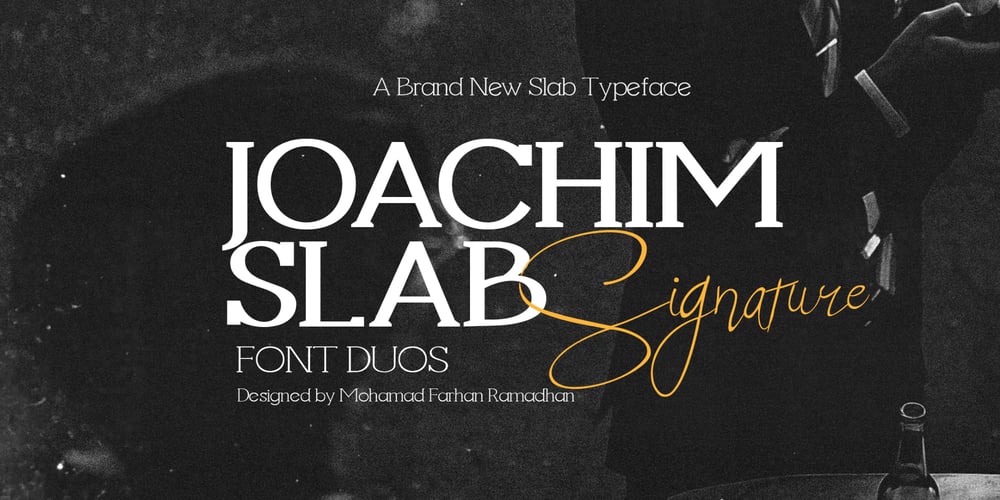
Joachim Slab Signature Font Family was designed by Mohamad Farhan Ramadhan and published by Mofr24. Joachim Slab Signature contains 3 styles and family package options. Introducing Joachim Slab, a Font Duos Typeface exuding elegance and a clean, sustainable aesthetic. Its signature style adds a touch of handwritten charm. Available in regular, bold, and signature variants, it’s versatile for visual identity, movie posters, book covers, headlines, album covers, logotypes, and more. Craft a distinctive visual identity with Joachim Slab’s refined and dynamic character.